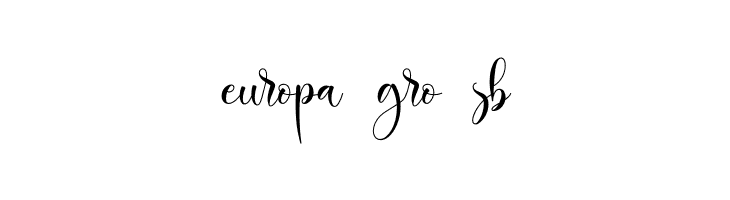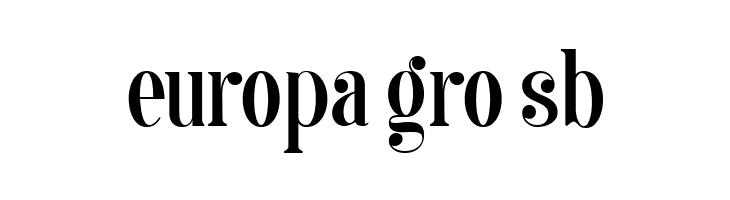
An elegant, cursive script font with flowing, ornate characters.
A playful, casual handwritten font with dynamic, flowing strokes.
A playful, bold handwritten font with smooth curves and a lively appearance.
An elegant and flowing script font with graceful curves and loops.
A bold, playful script font with a hand-drawn, energetic style.
A playful and elegant script font with fluid, connected strokes.
An elegant serif font with high contrast and decorative elements.
A dynamic and fluid script font with elegant, flowing strokes.
A bold, brush-style script font with dynamic strokes and artistic flair.